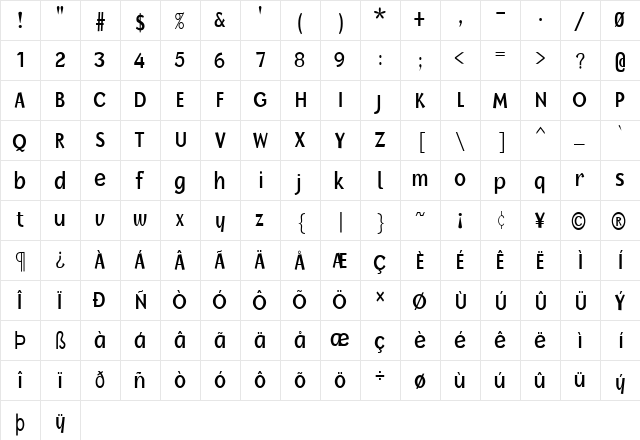
FZ BASIC 14 COND Normal
Design Context for FZ BASIC 14 COND Typeface
FZ BASIC 14 COND takes a measured approach to typography — its balanced proportions and neutral character make it a reliable workhorse for both digital and print work. Its narrow stance lets it pack a punch even in space-constrained designs.